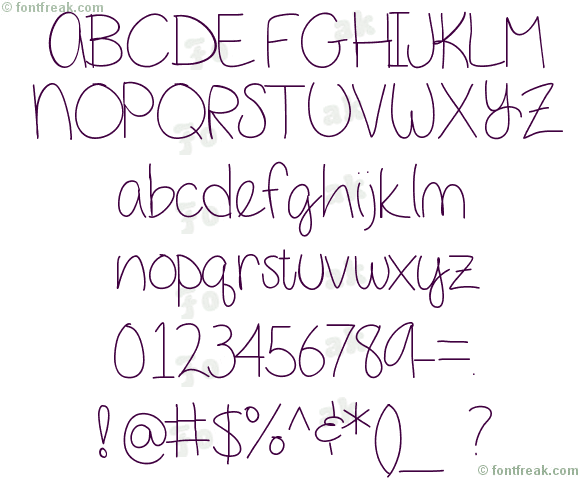
GirlNextDoor
About GirlNextDoor
The GirlNextDoor font by Vanessa Bays offers a unique handwritten style that perfectly captures a casual yet charming aesthetic. This script font features light to medium stroke weights with a playful, flowing design that adds warmth to any project. The characters are loosely spaced, enhancing its informal feel, while the slight variations in line thickness lend a touch of personality. The font is characterized by its whimsical curves and subtle embellishments, making it a delightful choice for various creative applications.
This versatile font is ideal for wedding invitations, where its romantic flair can set the tone for a special day. It's also well-suited for children's book covers, where the friendly appearance can appeal to young readers. Additionally, GirlNextDoor works beautifully for restaurant menus, adding a personal touch that invites diners to enjoy a cozy dining experience. Graphic designers will find it useful for crafting social media graphics that require a human touch, perfect for engaging content creators looking to enhance their visual storytelling. Small business owners can leverage this font to create eye-catching promotional materials that resonate with their audience.
The target audience for the GirlNextDoor font includes graphic designers, small business owners, and content creators who appreciate a handwritten style that feels approachable and relatable. This font stands out because it strikes a perfect balance between elegance and informality, making it a versatile choice for various design needs. With the GirlNextDoor font free download available, you can easily incorporate this charming typeface into your next project, ensuring your designs are infused with personality and warmth. Whether for personal or professional use, this font is sure to leave a lasting impression.